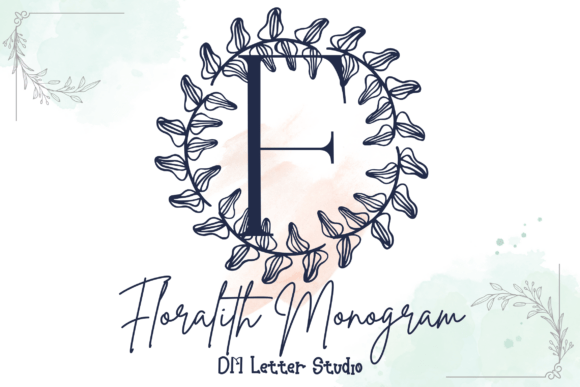
Introducing Floralith Monogram Font: Elevate Your Designs with Botanical Elegance
In the world of typography, monogram fonts hold a special place for their ability to add a touch of sophistication and personalization to various design projects. Among these, the Floralith Monogram Font stands out for its unique blend of classic serifs and delicate botanical elements. This refined and artistic monogram font is designed to bring a sense of natural elegance to a wide range of applications, from branding and wedding stationery to personalized gifts and decorative packaging.
The Essence of Floralith Monogram Font
Floralith Monogram is characterized by its uppercase initials that are beautifully adorned with botanical elements. The font features soft curves and floral details that seamlessly integrate with a timeless serif structure. This combination results in a font that exudes elegance and refinement, making it perfect for designs that require a touch of sophistication.
Key Features of Floralith Monogram Font
- Botanical Elements: The font incorporates delicate floral elements that add a natural and organic feel to your designs.
- Soft Curves: The soft curves of the letters provide a gentle and soothing aesthetic, ideal for designs that require a subtle yet impactful look.
- Timeless Serif Structure: The serif structure of the font gives it a classic and enduring look that can complement a variety of design styles.
- Uppercase Initials: The font features uppercase initials, making it perfect for monograms, titles, and headings.
Applications of Floralith Monogram Font
Floralith Monogram Font is incredibly versatile and can be used in a variety of design projects. Here are some of the most popular applications:
- Branding: Add a touch of elegance to your brand identity with custom monograms and logos.
- Wedding Stationery: Create beautiful and personalized wedding invitations, save-the-date cards, and more.
- Personalized Gifts: Add a special touch to gifts such as mugs, tote bags, and jewelry with custom monograms.
- Decorative Packaging: Elevate your packaging design with elegant monograms and botanical details.
Why Choose Floralith Monogram Font?
With so many fonts available, why choose Floralith Monogram? Here are a few reasons:
- Unique Design: The combination of botanical elements and classic serifs makes Floralith Monogram stand out from other fonts.
- Elegant Aesthetic: The font’s elegant design makes it perfect for projects that require a touch of sophistication.
- Versatility: Floralith Monogram can be used in a variety of design projects, from branding to wedding stationery.
Tips for Using Floralith Monogram Font
Here are some tips for getting the most out of Floralith Monogram Font:
- Pair with Neutral Colors: Pair the font with neutral colors such as white, beige, or light gray to let the botanical details shine.
- Experiment with Sizes: Experiment with different font sizes to create visual interest and hierarchy in your designs.
- Add Texture: Add texture to your designs by incorporating natural elements such as paper, wood, or fabric.
- Keep it Simple: Keep your designs simple and elegant to let the font be the focal point.
Floralith Monogram Font is a beautiful and elegant font that can add a touch of sophistication to a wide range of design projects. With its unique blend of botanical elements and classic serifs, this font is perfect for designers who want to create elegant and refined designs. Whether you’re designing for romance or refinement, Floralith Monogram Font is a great choice.